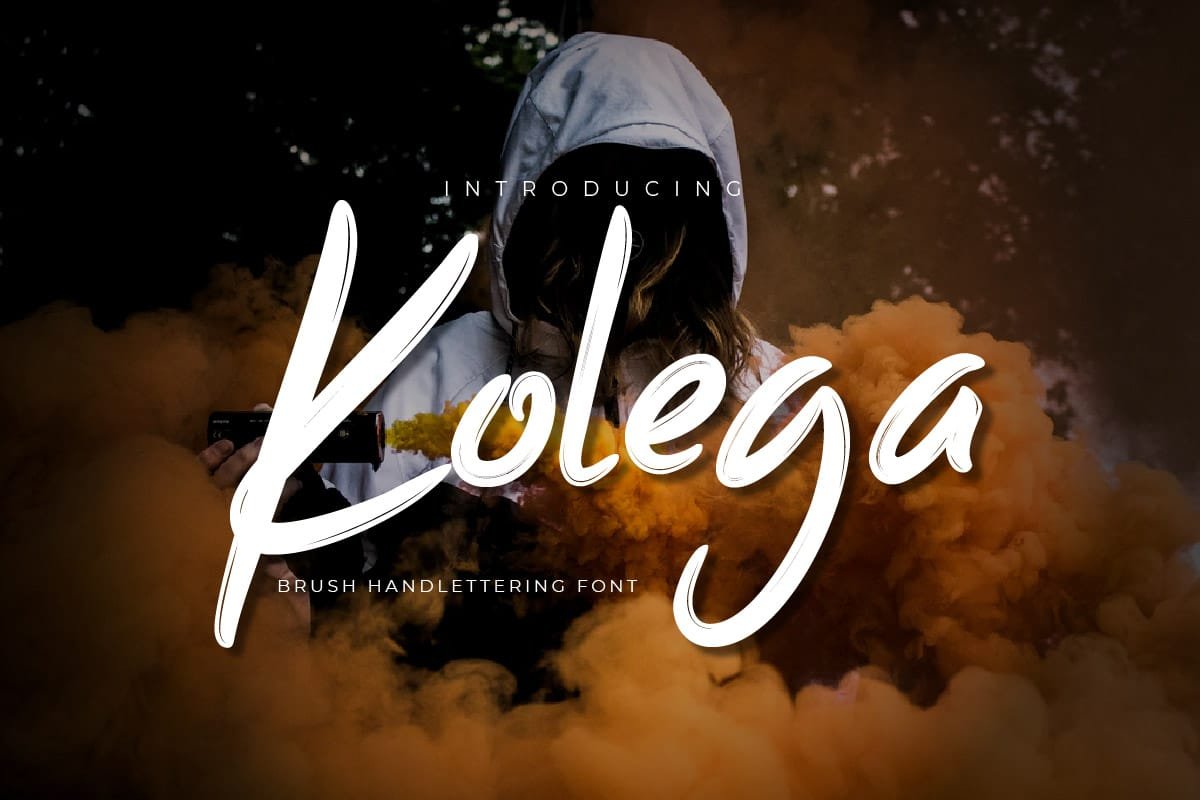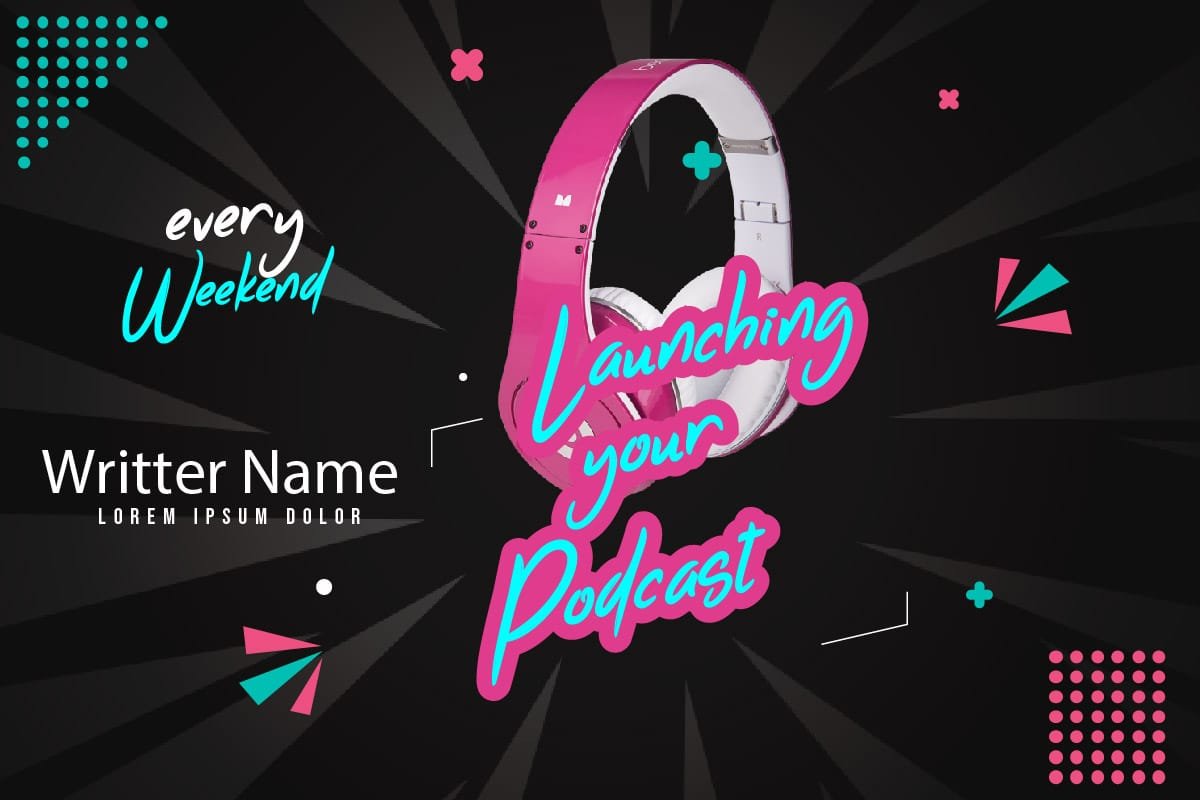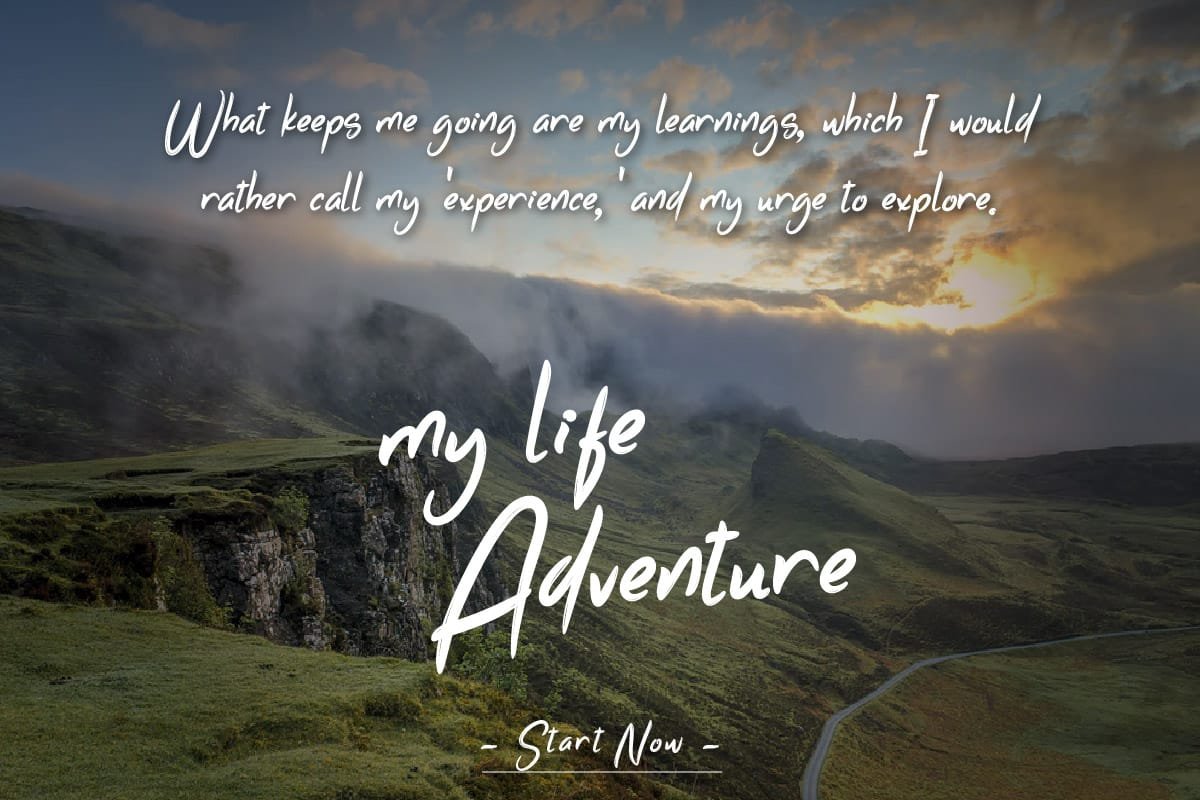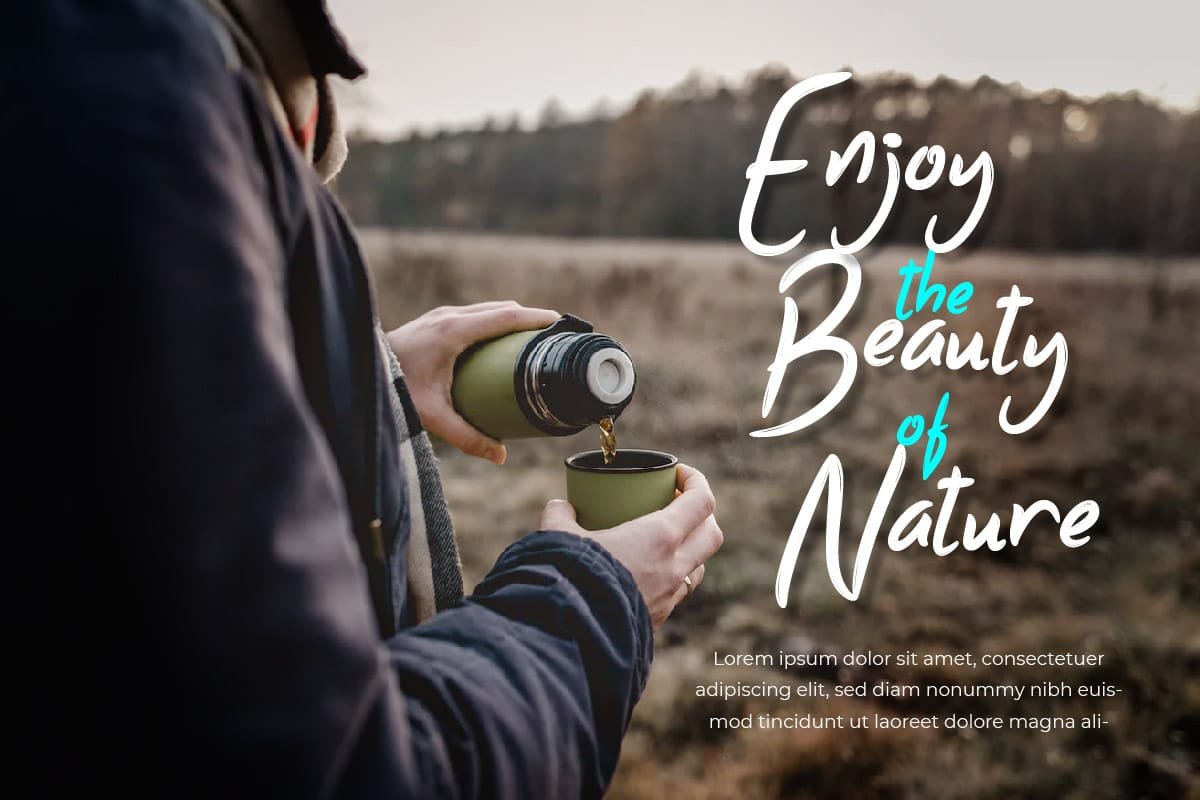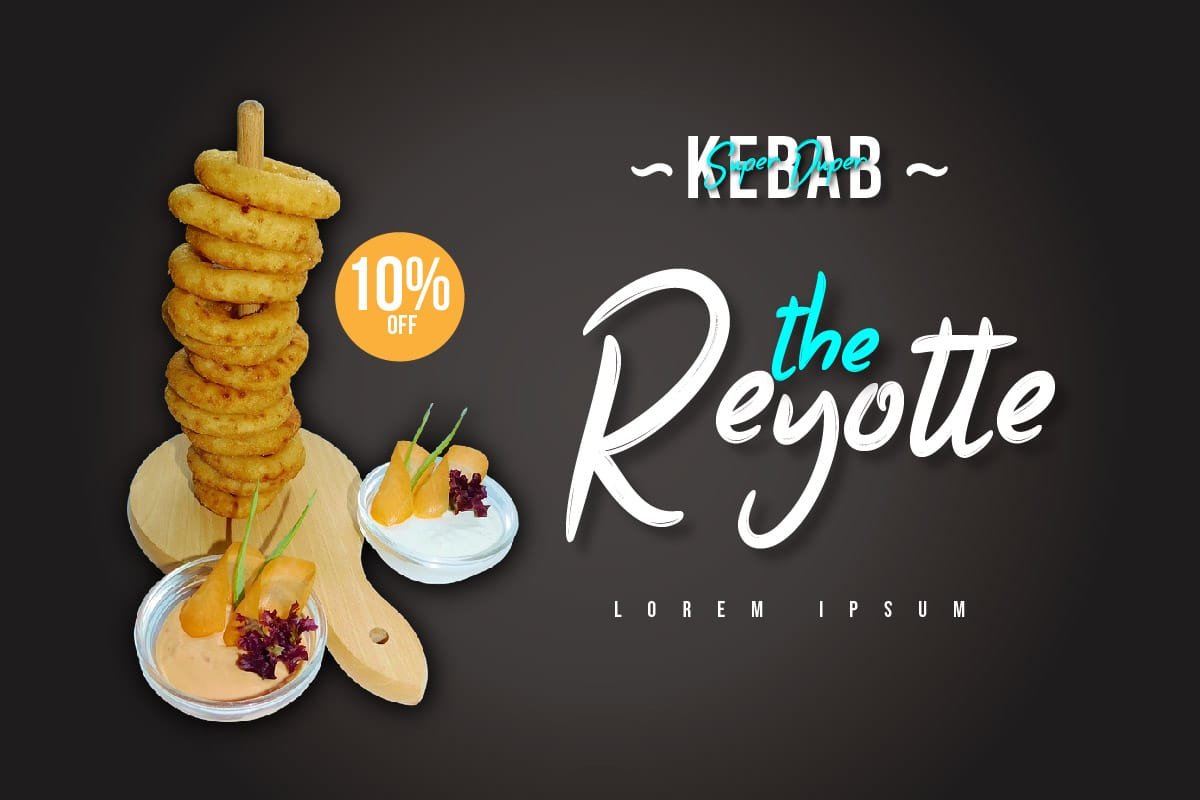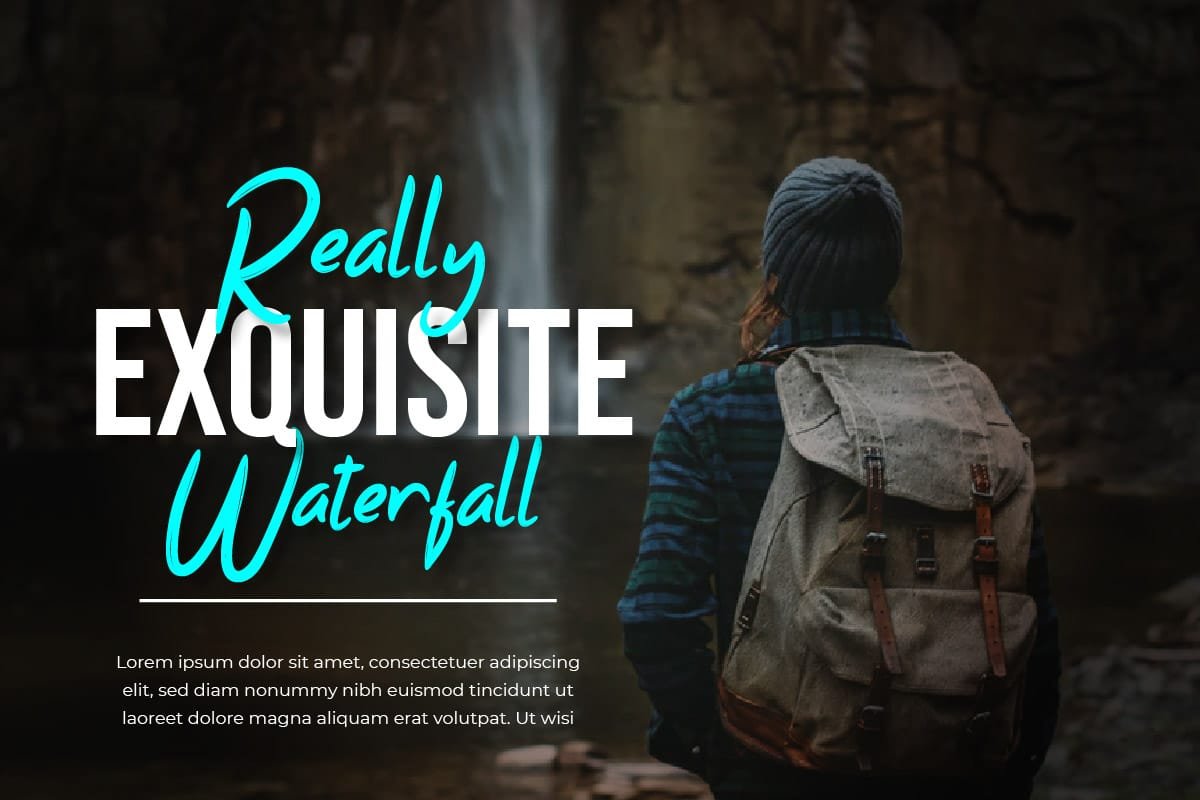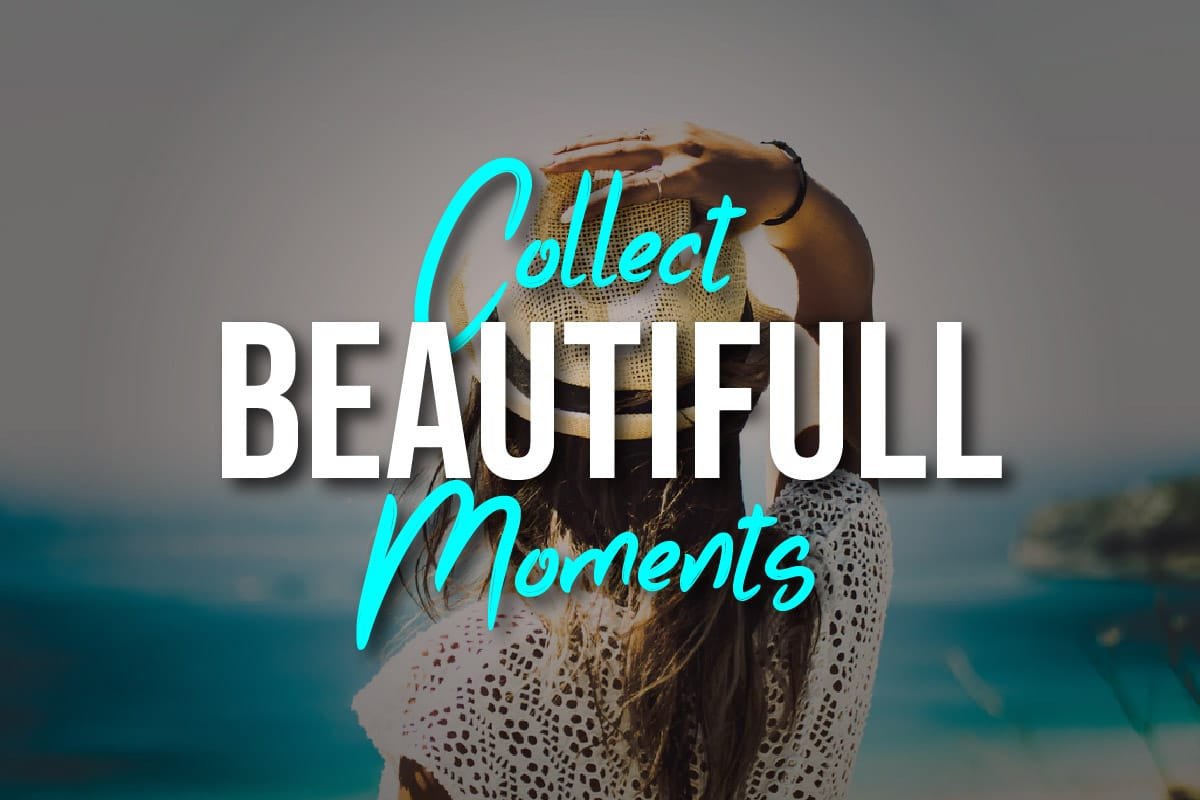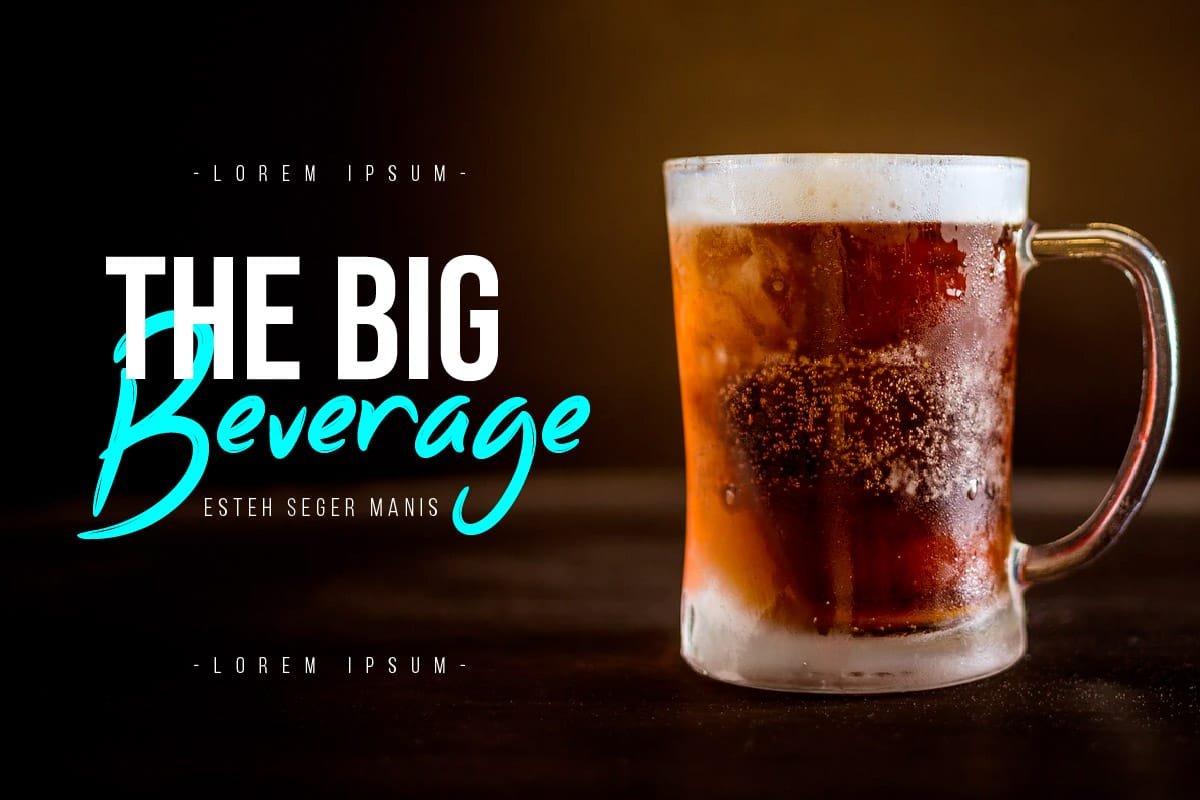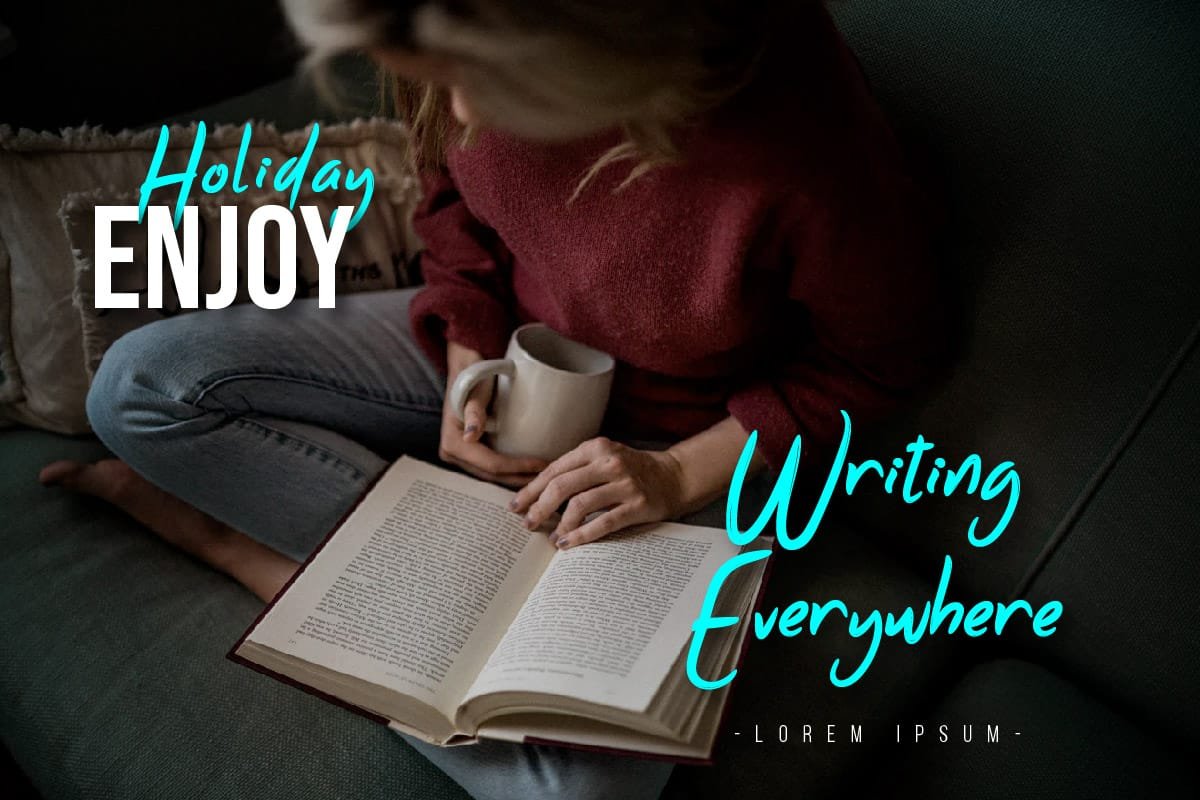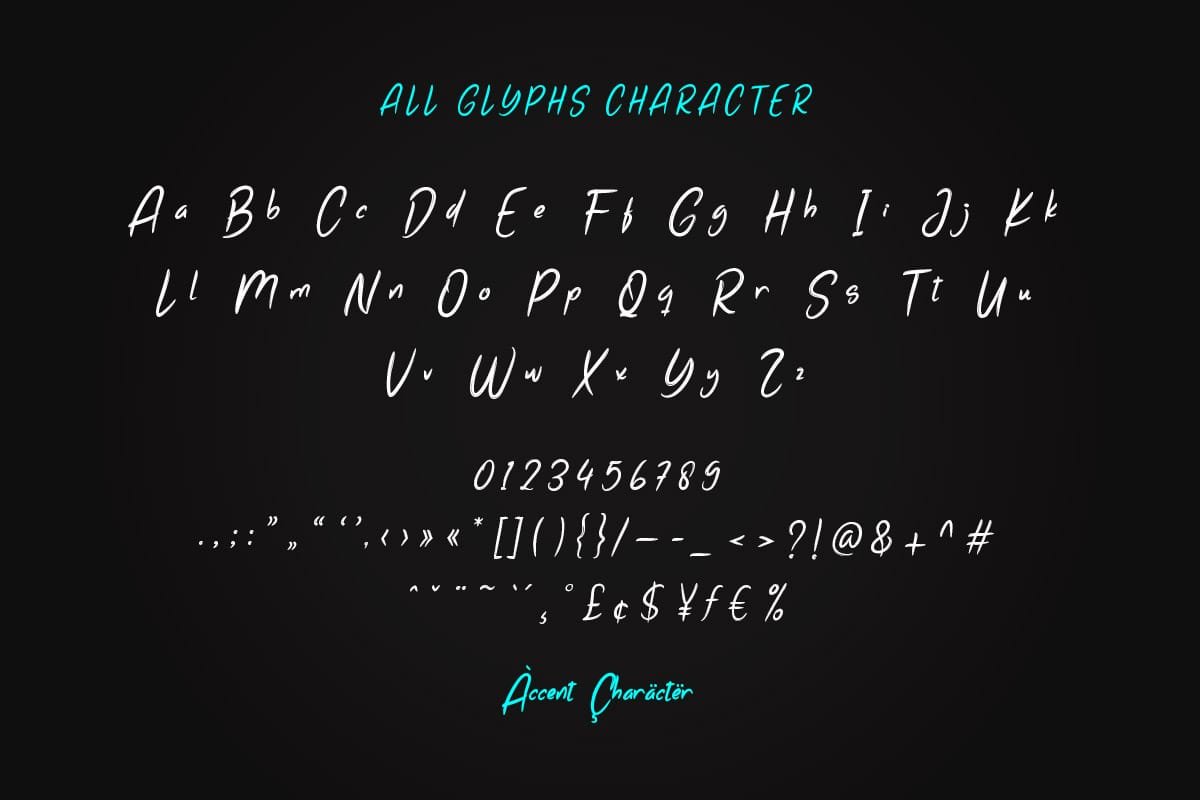
Foster connections and build community with Kolega – Brush Handwritten Font, the font that’s as friendly as it gets! With its warm strokes and inviting design, Kolega brings people together and creates a sense of camaraderie wherever it goes. Whether you’re designing inclusive community event posters, crafting team-building activity invitations, or creating engaging social media campaigns, Kolega is your go-to font for creating designs that bring people closer together. Get ready to make friends and inspire collaboration with Kolega – the font that’s all about spreading positivity and building connections!